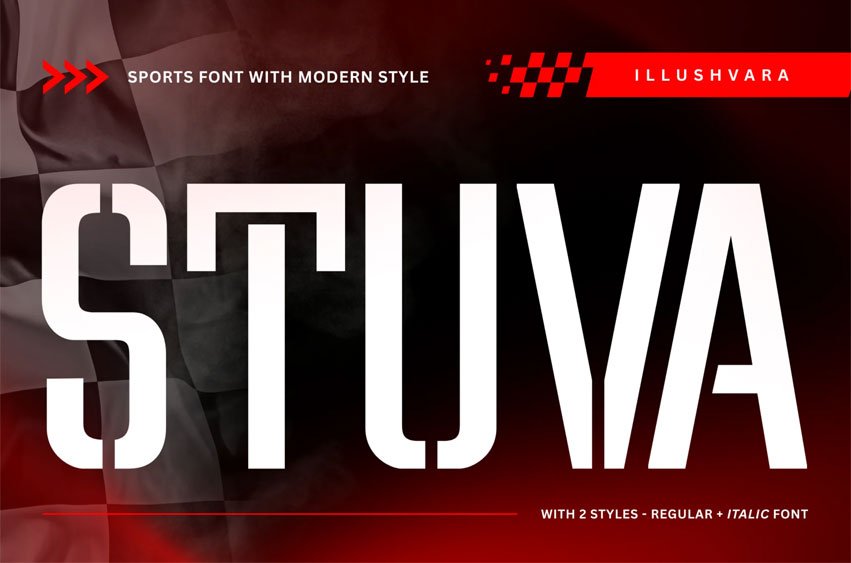
Stuva Font is a modern sans serif font designed to bring strong energy and bold style to any project. Built in an all-caps format with Regular and Italic styles, this typeface delivers a powerful and dynamic look perfect for sports, racing, and automotive designs.
Stuva Sports also features many unique ligatures that create a sleek and futuristic feel. Ideal for logos, branding, posters, headlines, and modern sport identities, this font adds speed, strength, and character to your design.